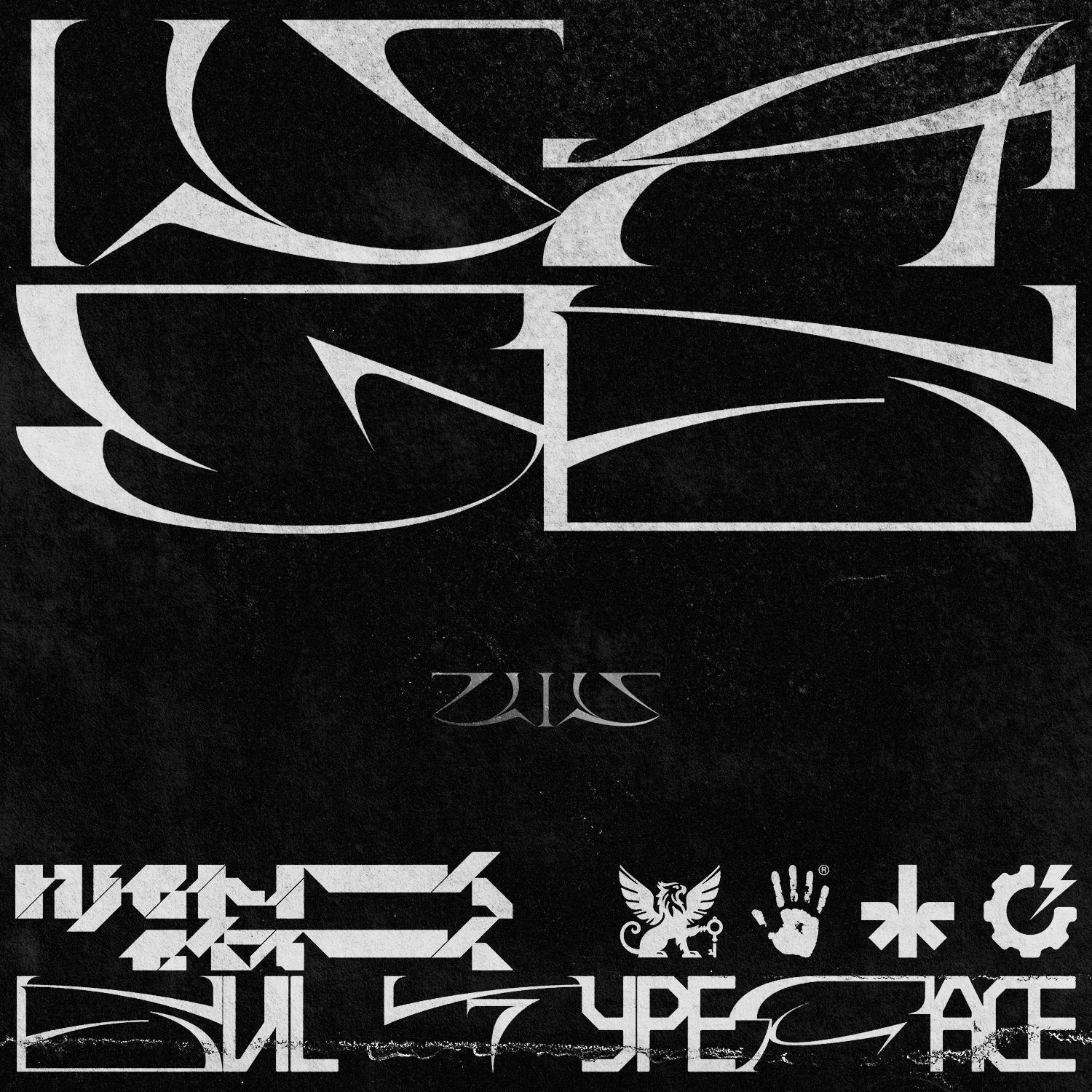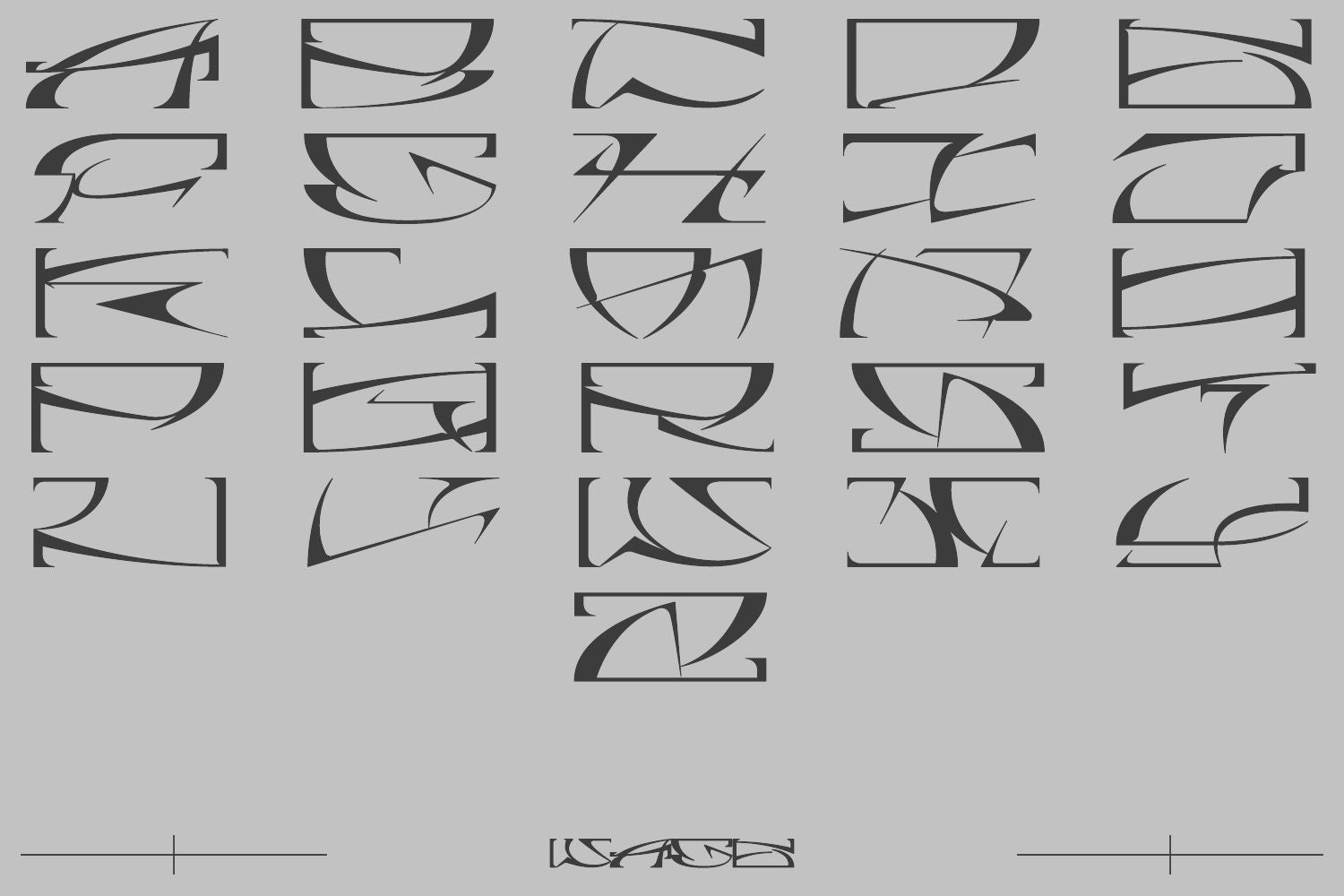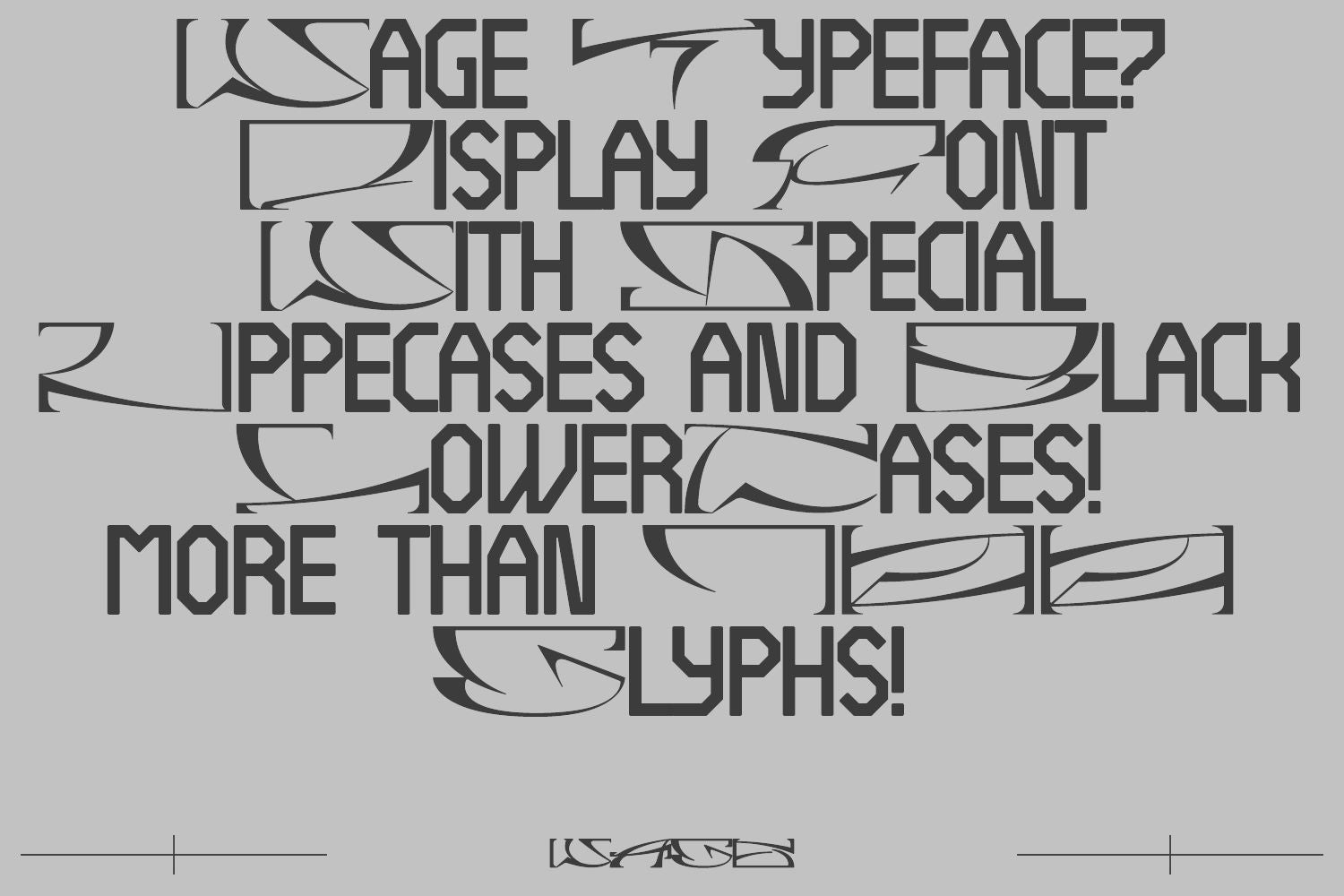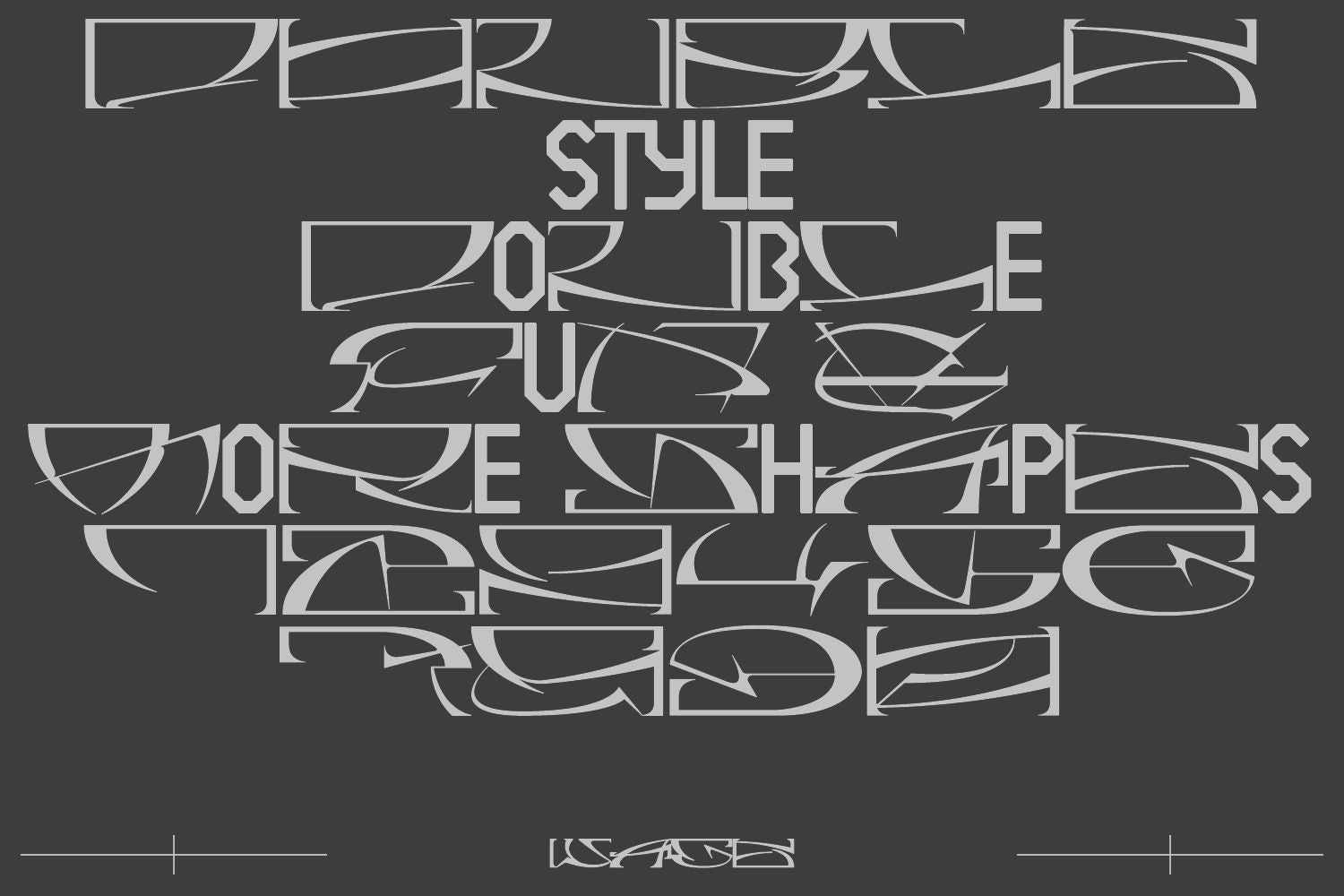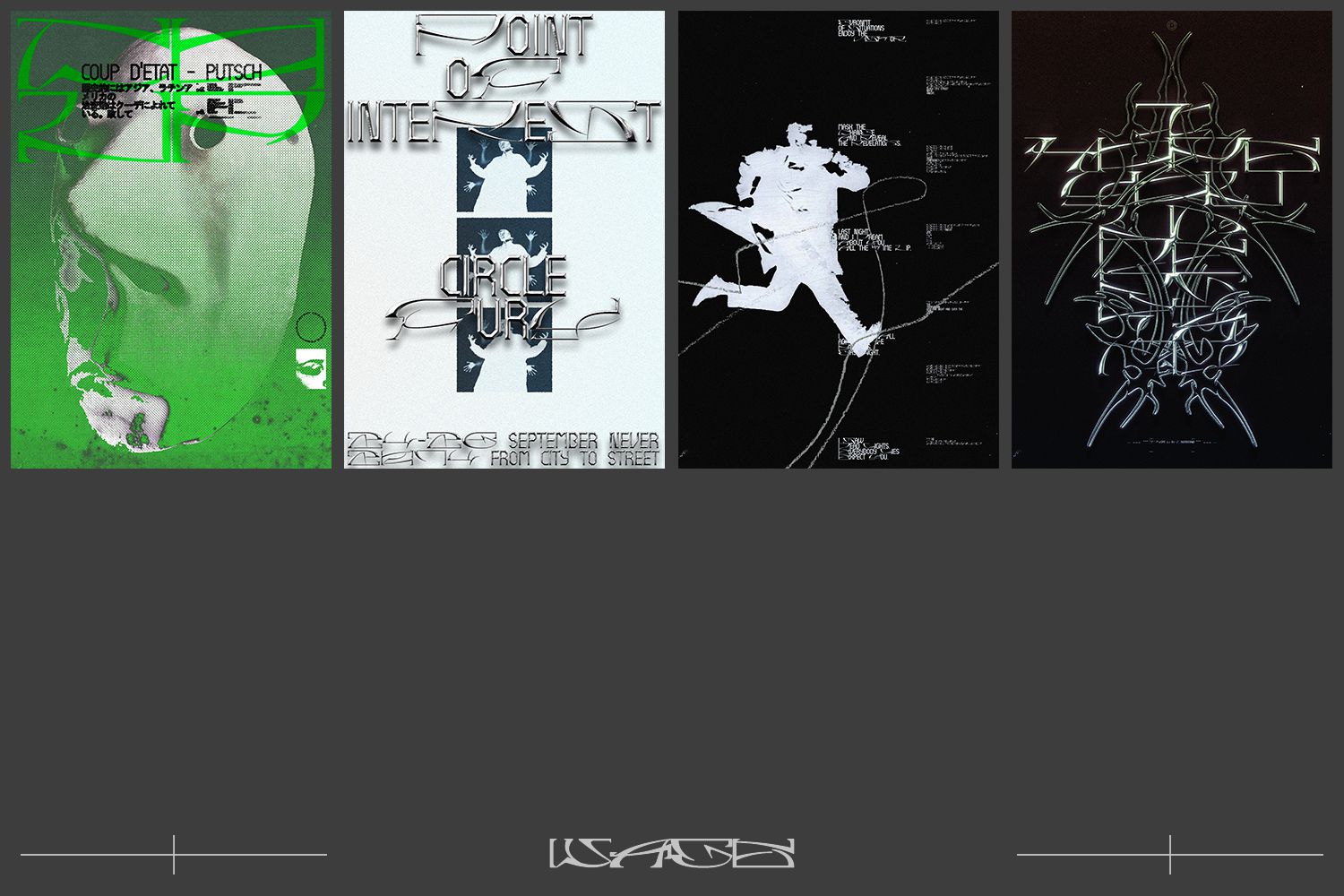
Wage Typeface
The Wage Typeface is a unique underground font that combines ultra-wide, razor-sharp characters with bold, robotic elements. This font is ideal for modern designs and can be used on various mediums such as t-shirts, posters, and albums.
Ideal for modern and edgy graphic design projects. Perfect for t-shirts, posters, album covers, and branding, ensuring a bold and unique visual impact.